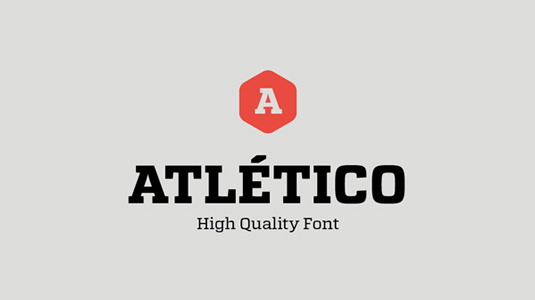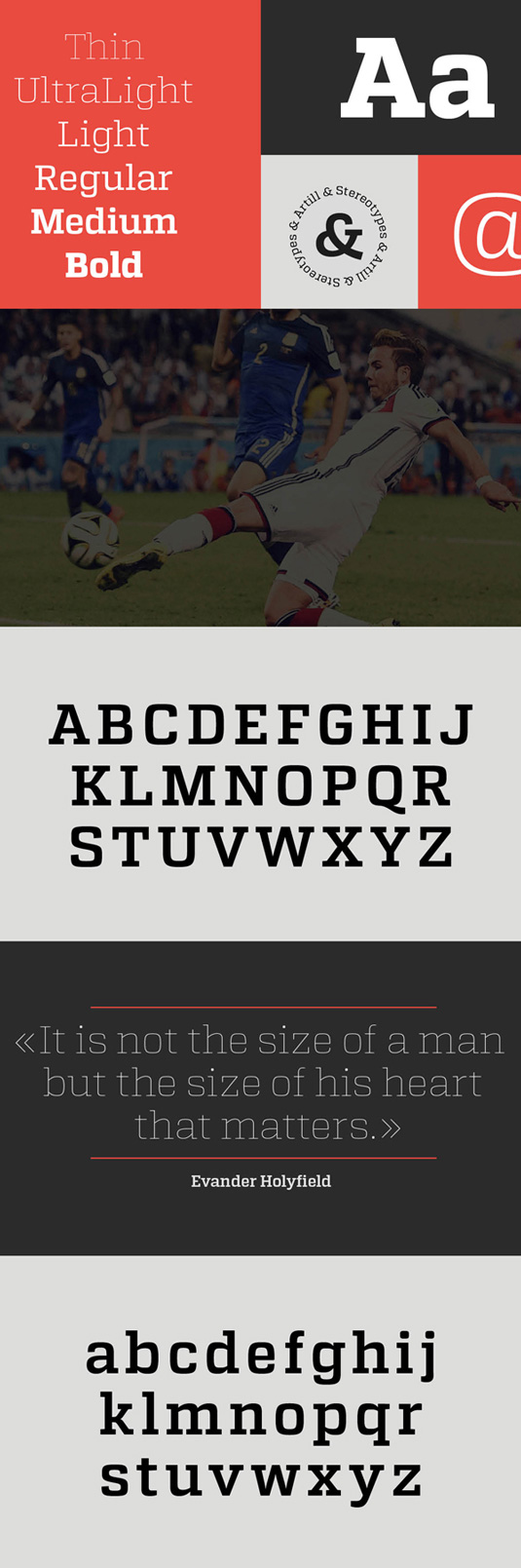
Atletico by Lukas Bischoff and Sascha Timplan
Today's font of choice is Atletico, by type designer Sascha Timplan (opens in new tab) and art director Lukas Bischoff (opens in new tab). A bold, clean typeface, Atletico is great for any sports-themed design.